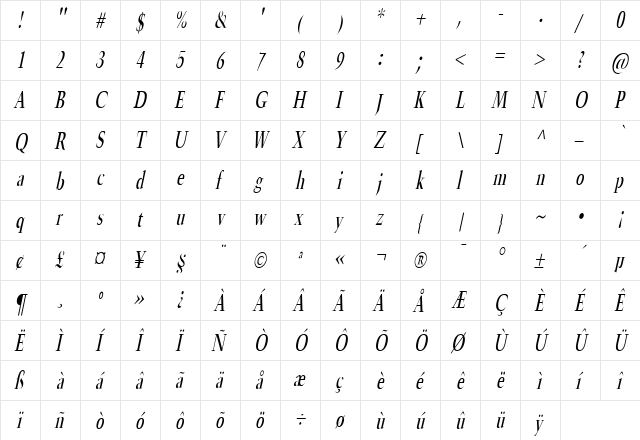
Horn Thin Italic
Design Context for Horn Thin Typeface
Horn Thin is a composed and adaptable typeface that performs quietly and consistently across a wide range of design contexts. The slanted form adds forward momentum and visual energy. The delicate stroke weight brings airiness and refinement to layouts.
Pro Tip: Try Horn Thin for annotation and caption copy alongside an upright companion — the contrast in angle creates a dynamic but ordered typographic system.